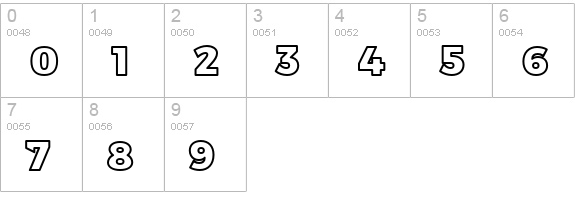
Trueno Black Outline Font Details
Trueno Black Outline is a maximum-weight, dramatic variant in the Trueno typeface family \xE2\x80\x94 well suited to maximum-impact headlines, posters, and packaging.
Trueno Black Outline font is a striking and eye-catching typeface that is sure to make a bold statement in any design project. With its clean and modern lines, this font is perfect for adding a touch of sophistication to your designs. The black outline gives the letters a unique and stylish appearance, making it perfect for headlines, logos, posters, and more. One of the best things about Trueno Black Outline font is that it is completely free to download. You can easily access this amazing font at FontsMarket.com, where it is available for everyone to download and use in their creative endeavors. Whether you are a professional designer or a hobbyist, this font is a valuable addition to your font library. Trueno Black Outline font is incredibly versatile and can be used in a variety of design projects. Its bold and strong appearance makes it perfect for creating impactful and attention-grabbing designs. From advertising materials to website headers, this font will surely make a lasting impression on your audience. The legibility of Trueno Black Outline font is also worth mentioning. Despite its unique design, the letters are easily readable, ensuring that your message is effectively communicated to your audience. The clean lines and balanced proportions of the font create a harmonious and visually pleasing result. If you are looking for a font that combines style, elegance, and impact, then Trueno Black Outline font is the perfect choice. Download it today for free at FontsMarket.com and elevate your designs to the next level.